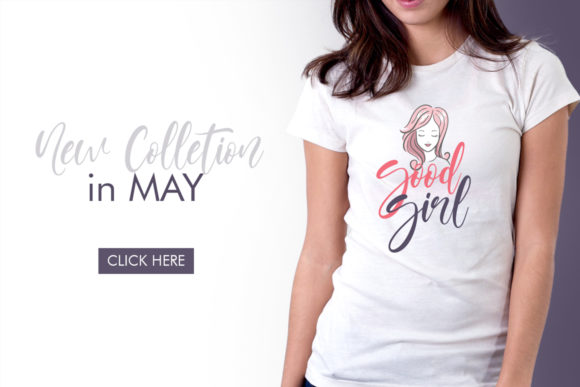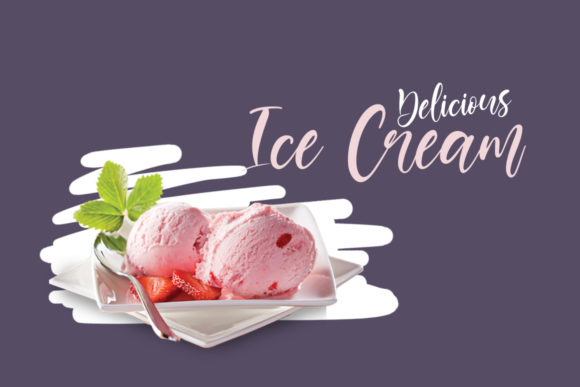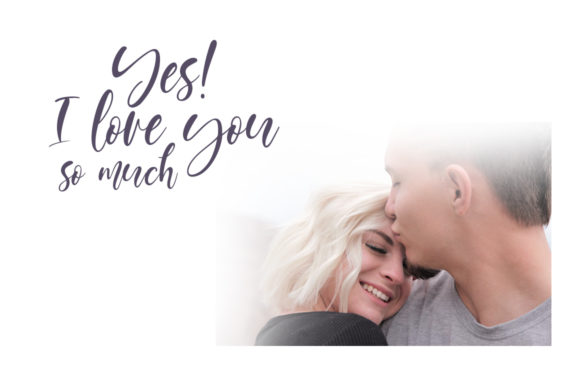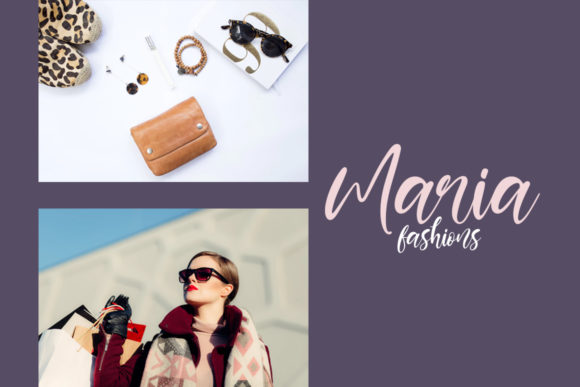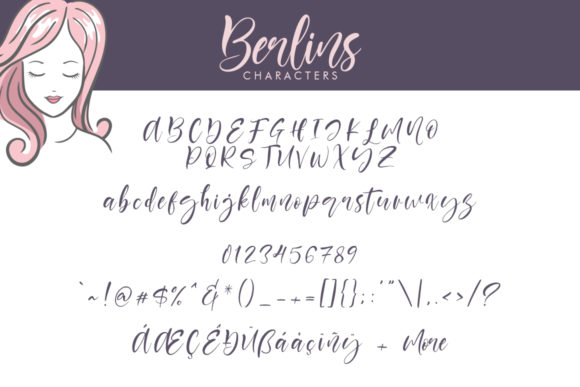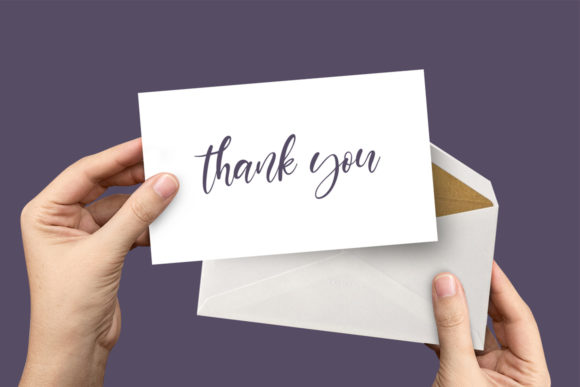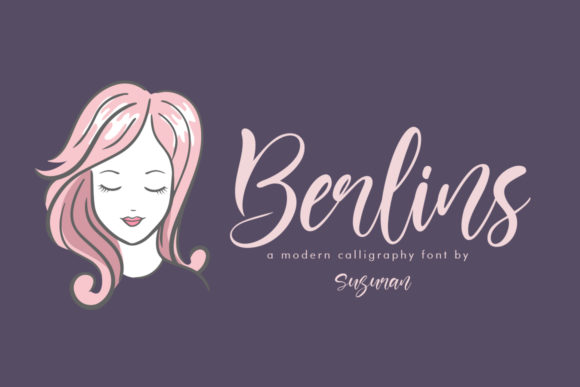
The Designer’s Delight: Unwrapping the Charm of Berlins Script Font
Have you ever been in the middle of a design project, and suddenly, it feels like something’s missing? You’re not quite sure what it is, but you know it has to do with the font. I’ve been there too! I recall working on a wedding invitation design, and no matter how hard I tried, I just couldn’t find the perfect script font that would capture the elegance and playfulness I was aiming for. That’s when I stumbled upon Berlins Script Font, and let me tell you, it was love at first sight! 💕
A Personal Review: What I Love About Berlins
Berlins Script Font is a fresh and unique handwritten font that has a lovely twist. Here are some things I absolutely adore about it:
- ✨ Playful and delicate vibe: Berlins has a way of adding a touch of whimsy to any design project, making it perfect for creative hobbyists and professional designers alike.
- ✅ Elegant and refined: Despite its playful nature, Berlins exudes a sense of sophistication, making it suitable for a wide range of design projects, from wedding invitations to branding materials.
- 💫 Highly versatile: This font can be used for both digital and print projects, and its flexibility makes it an excellent choice for designers who like to experiment with different styles.
While Berlins Script Font is an amazing addition to any design project, there are a few things to keep in mind:
⚠️ Legibility at small sizes: Like many script fonts, Berlins can be a bit tricky to read at very small sizes. Make sure to test it out at different sizes to ensure it works for your project.
🤔 Overuse of swashes: While the swashes in Berlins are beautiful, using too many can make the text look cluttered. Use them sparingly to add a touch of elegance.
The Story Behind Berlins: Designer Inspiration
Berlins Script Font was inspired by the charming streets of Berlin, Germany. The designer, who wished to remain anonymous, wanted to capture the city’s vibrant energy and eclectic mix of old and new. The result is a font that’s both playful and refined, perfect for designers looking to add a touch of whimsy to their projects.
In conclusion, Berlins Script Font is a stunning addition to any design project. Its playful and delicate vibe makes it perfect for creative hobbyists and professional designers alike. With its versatility, elegance, and whimsy, it’s no wonder Berlins has become a favorite among designers. So go ahead, give it a try, and see how it can elevate your designs to the next level! 🚀